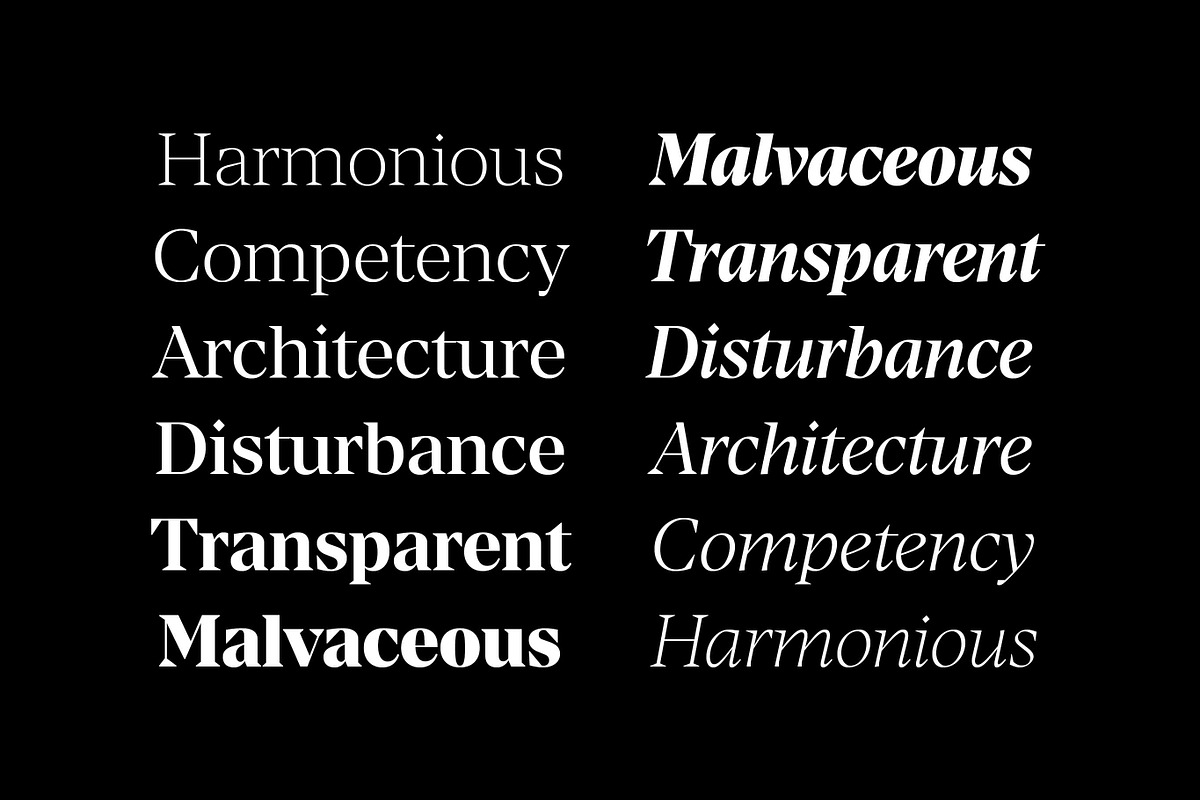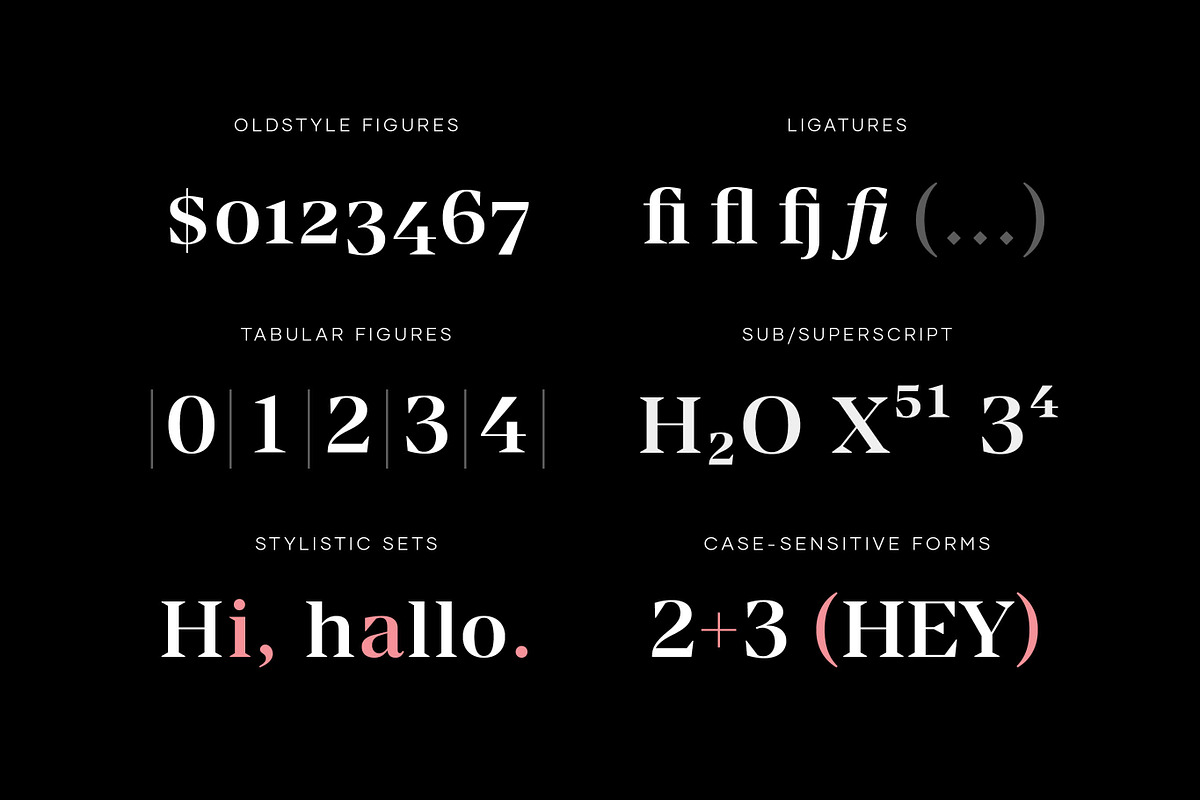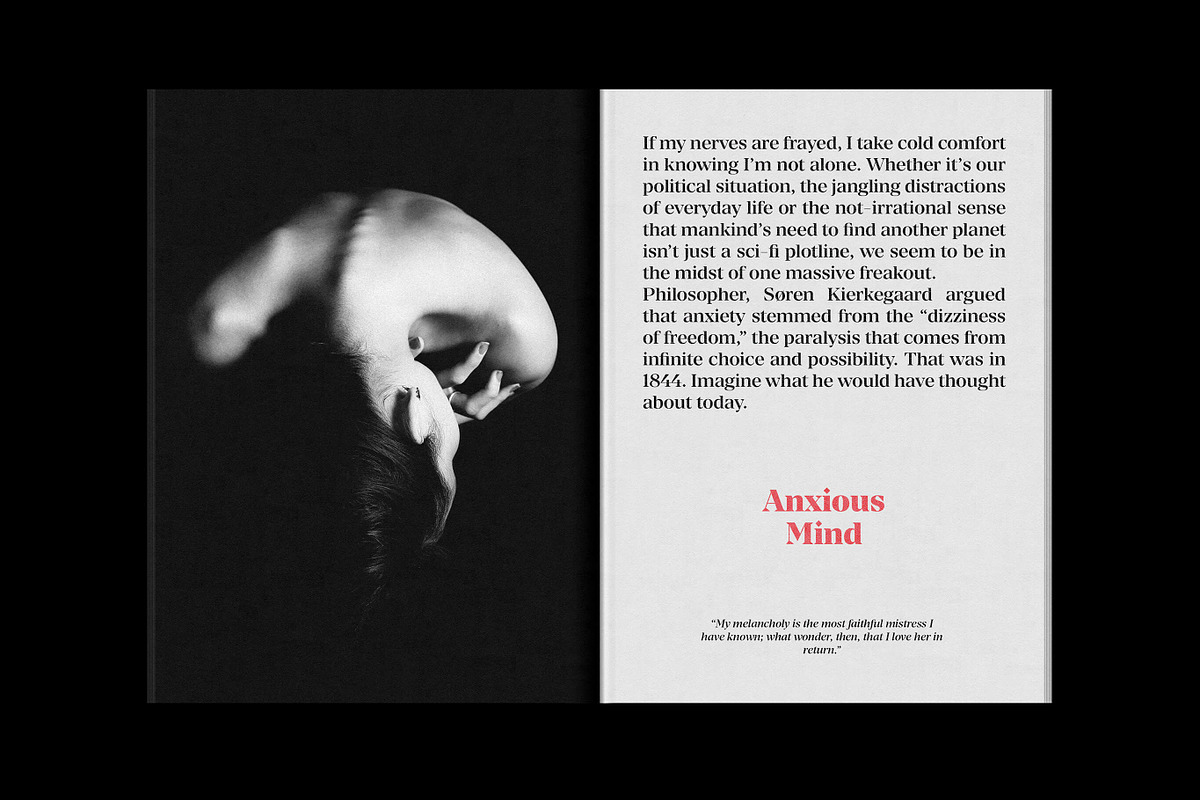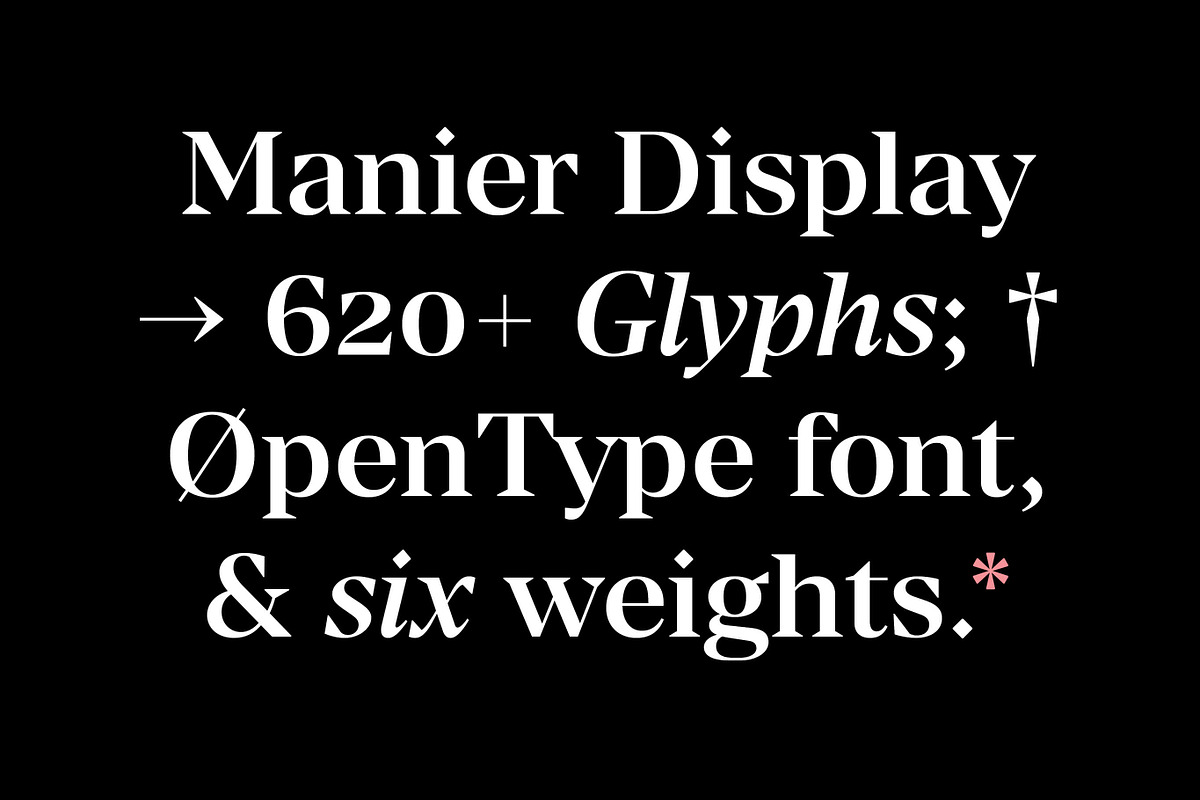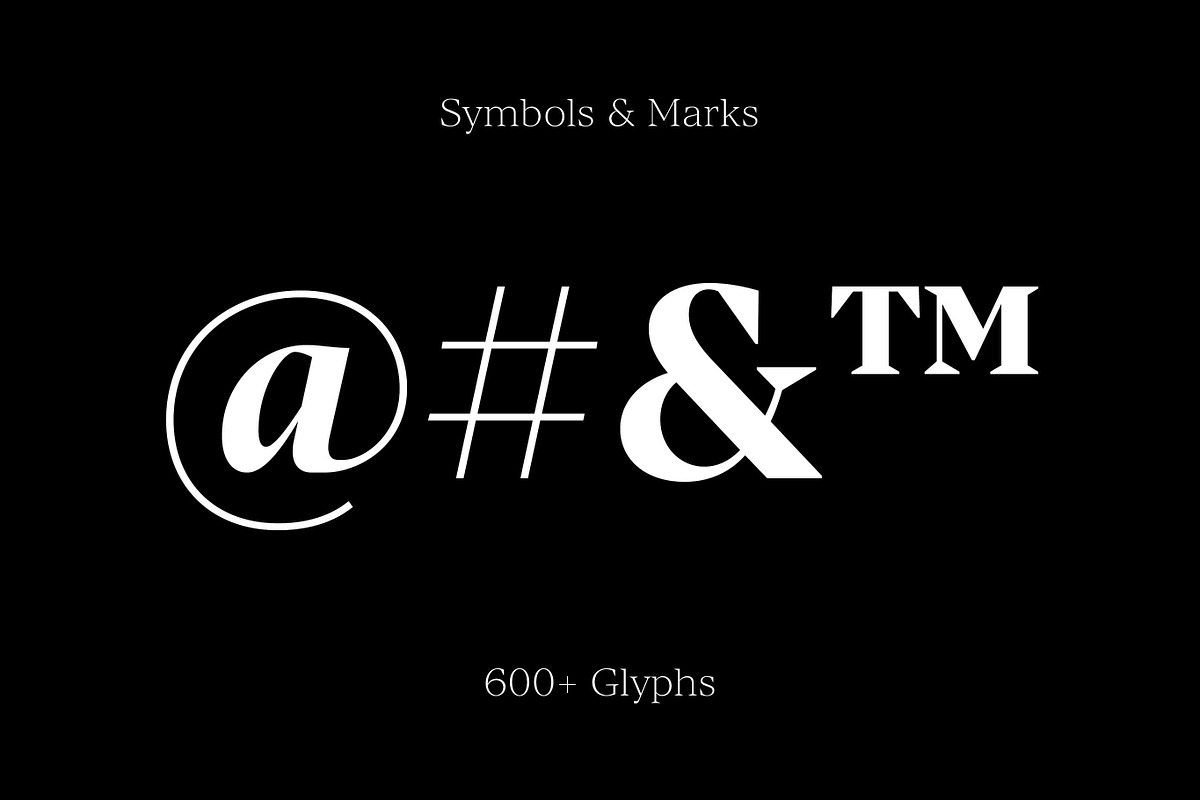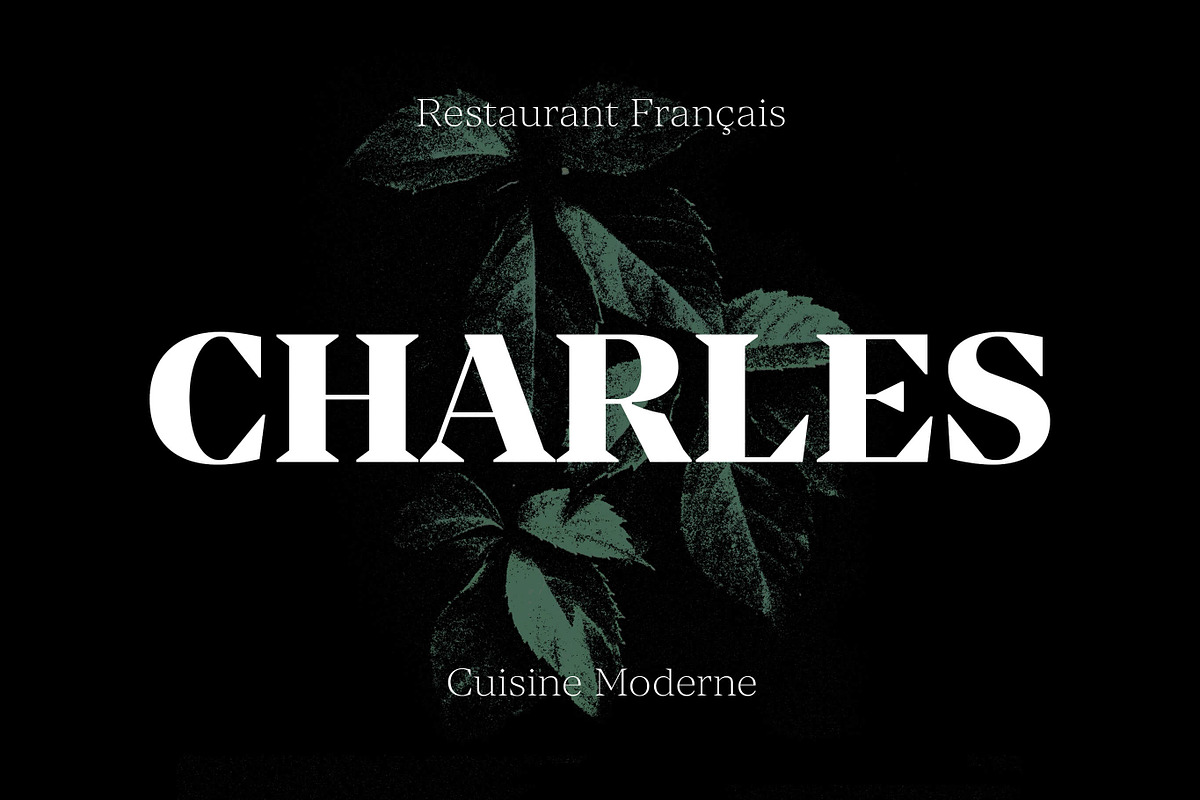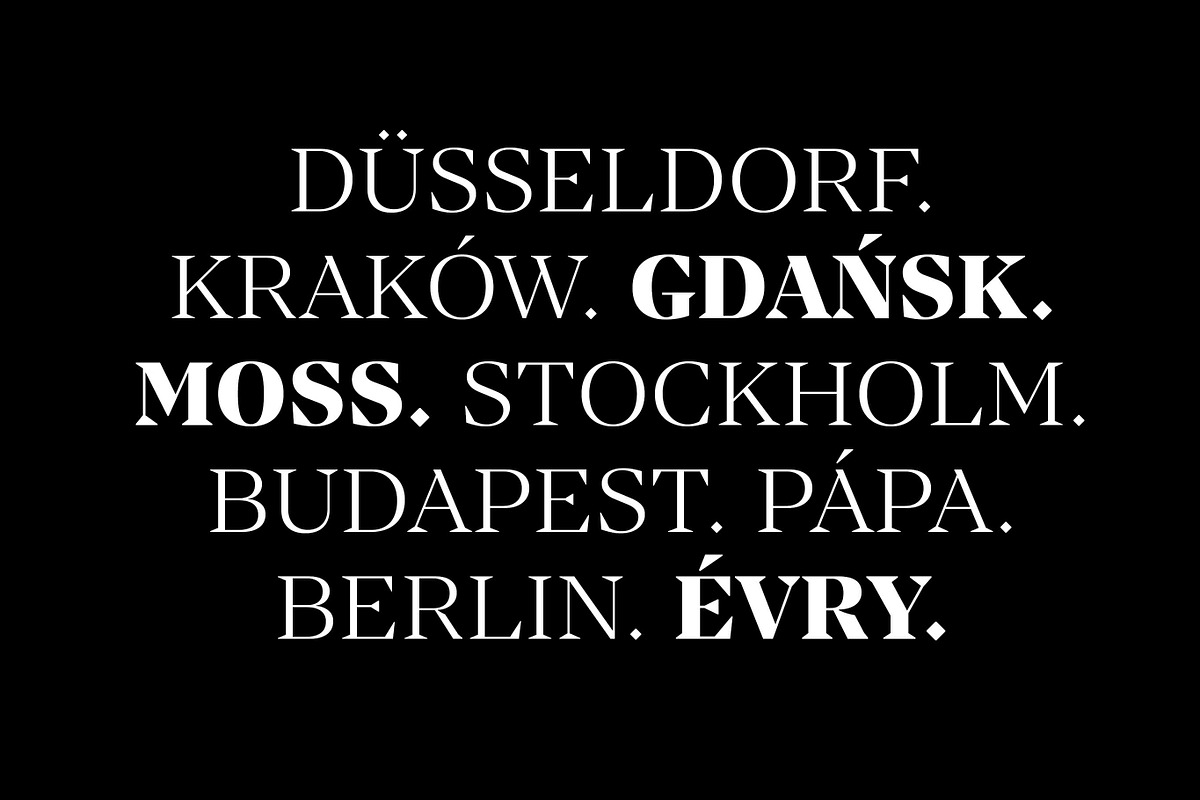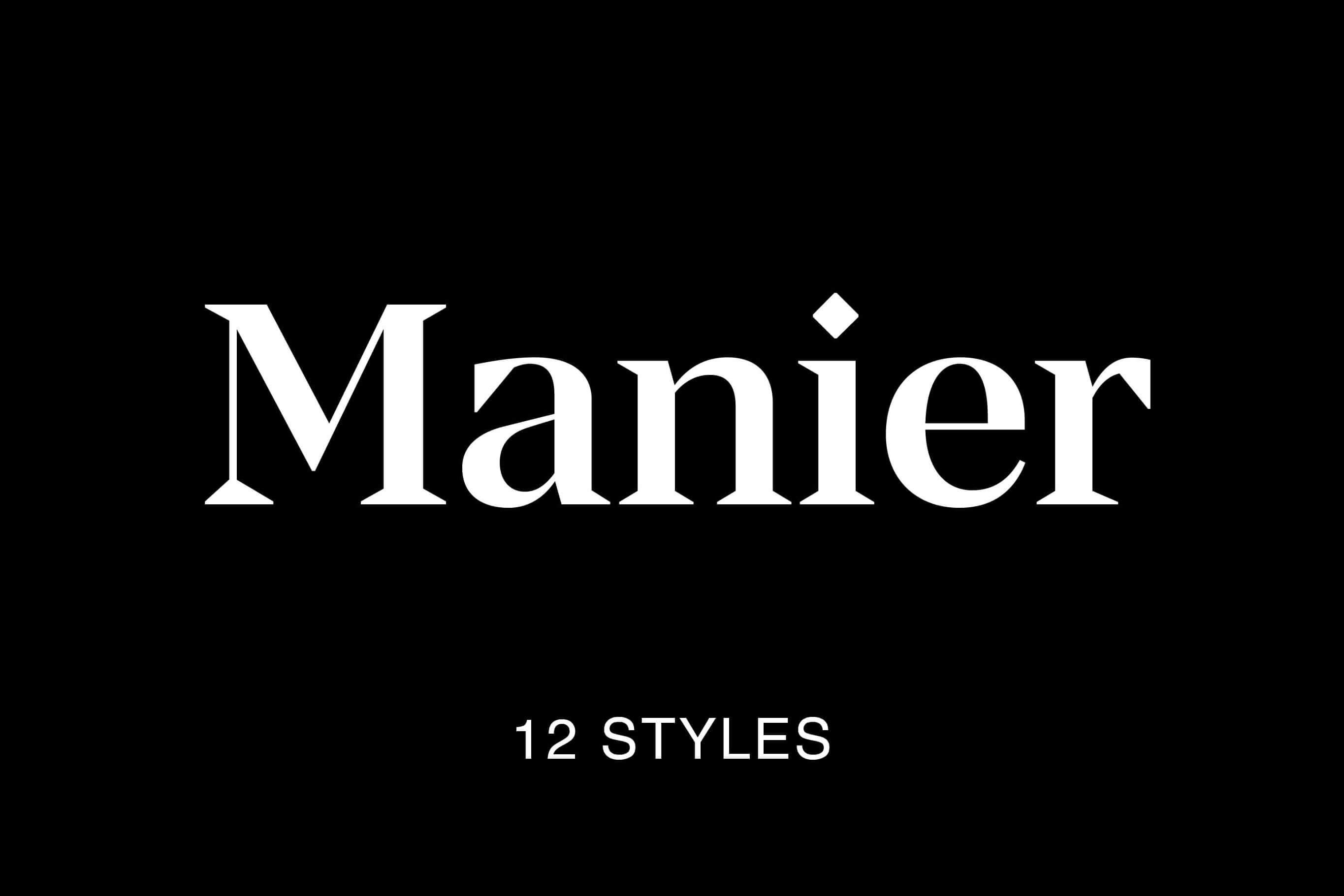
Manier – Sharp Serif Typeface
Manier is a fresh, display, wedge-serif font family inspired by transitional and contemporary typefaces. Manier has a big x-height value, modern proportions, sharp serifs and an extreme stroke contrast with a vertical stress. The typeface is a great choice for headlines, titles, posters and branding but also can be successfully used in small articles and occasional texts.
12 Styles, 6 Weights
Roman & Italics
Extended Latin Support
600+ Glyphs Set
OpenType Features
Precise Kerning